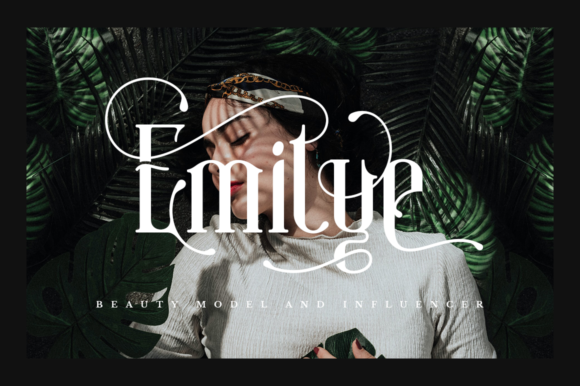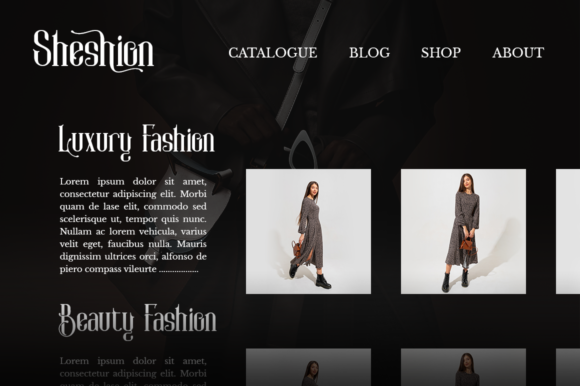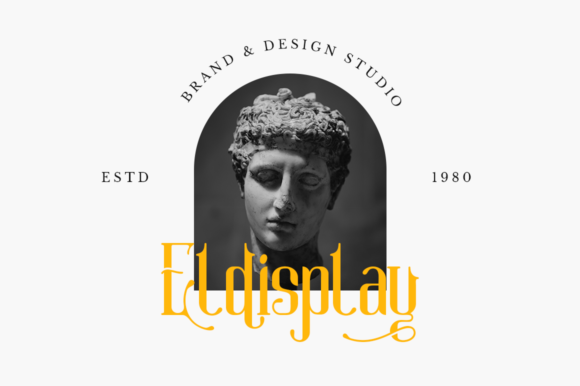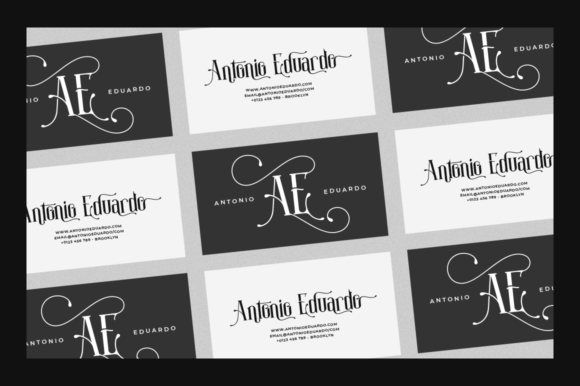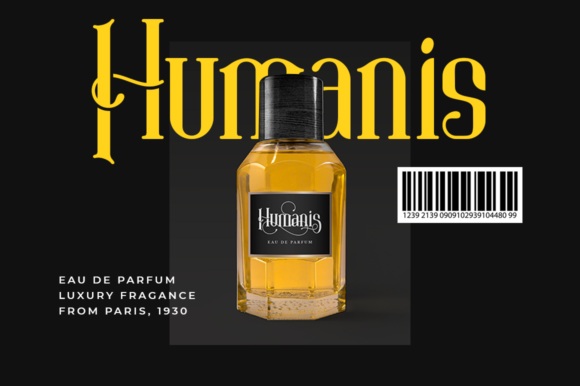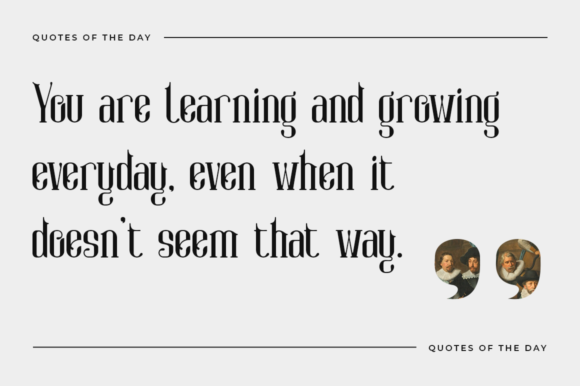
Introducing Deska Magosta Font: Elevate Your Designs with Elegance and Sophistication
In the world of typography, a well-crafted font can make all the difference in elevating your designs from ordinary to extraordinary. For designers and crafters seeking a serif font that embodies both classic elegance and modern flair, look no further than Deska Magosta. This outstanding font simplifies sophistication into a truly remarkable typeface that is sure to leave a lasting impression.
The Essence of Deska Magosta
Deska Magosta is a masterfully designed serif font that strikes the perfect balance between traditional calligraphic influences and contemporary style. Its classy, elegant feel is perfectly suited for a wide range of design applications, from luxury branding and high-end packaging to elegant stationery and stylish digital content. With Deska Magosta, you can add a touch of refinement and sophistication to your projects, setting them apart from the ordinary.
Contemporary and Fresh, yet Timelessly Elegant
What sets Deska Magosta apart is its unique ability to feel both modern and fresh, while still maintaining a timeless elegance. This versatility makes it an ideal choice for designers who want to create stunning visuals that are not only aesthetically pleasing but also highly effective in communicating their message. Whether you’re working on a corporate brand identity, a creative editorial project, or a personal craft endeavor, Deska Magosta provides the perfect typographic foundation.
Deska Magosta is PUA (Private Use Area) encoded, which means that accessing all the glyphs and swashes is incredibly easy. This thoughtful design consideration allows designers to work efficiently, exploring the full creative potential of the font without unnecessary complications. With PUA encoding, you can seamlessly incorporate the beautiful swashes and glyphs into your designs, enhancing their visual appeal and expressive power.
The inclusion of swashes and additional glyphs in Deska Magosta opens up a world of creative possibilities. Designers can use these elements to create stunning headings, elegant text flourishes, and eye-catching titles that capture the essence of their projects. Crafters, too, can leverage the font’s beautiful details to add a personal touch to their handmade creations, from bespoke wedding invitations to unique art pieces.
Why Choose Deska Magosta?
There are several compelling reasons why Deska Magosta should be your go-to serif font for your next design or crafting project:
- Elegant and Classy: Deska Magosta brings a level of sophistication and elegance that is hard to find in other serif fonts.
- Contemporary Feel: Despite its classic roots, the font feels modern and fresh, making it suitable for a wide range of applications.
- PUA Encoding: Enjoy easy access to all glyphs and swashes, streamlining your design process.
- Versatility: Perfect for luxury brands, editorial designs, packaging, and personal projects.
Deska Magosta is more than just a font; it’s a design tool that can elevate your work to new heights of elegance and sophistication. Its unique blend of classic calligraphic influences and modern style, combined with the convenience of PUA encoding, makes it an indispensable asset for designers and crafters alike. Whether you’re looking to create visually stunning designs or add a touch of elegance to your handmade projects, Deska Magosta is the perfect choice. Discover the transformative power of Deska Magosta and take your designs to the next level.